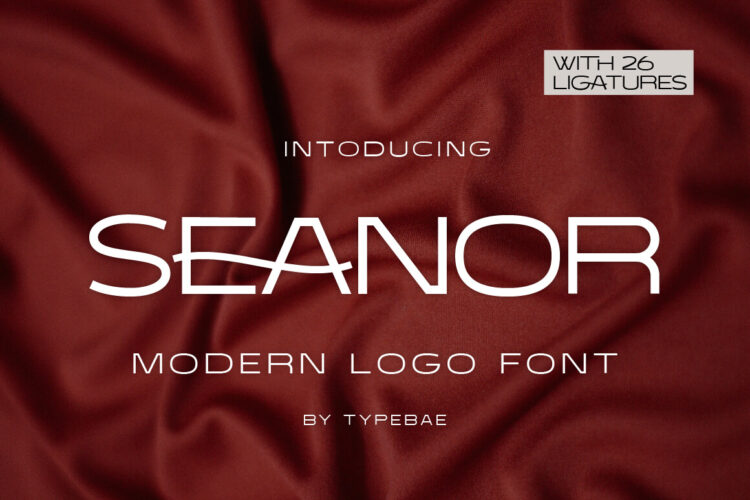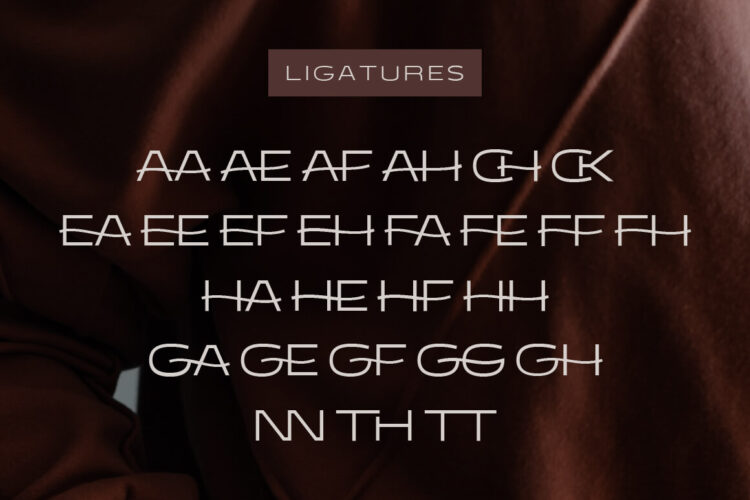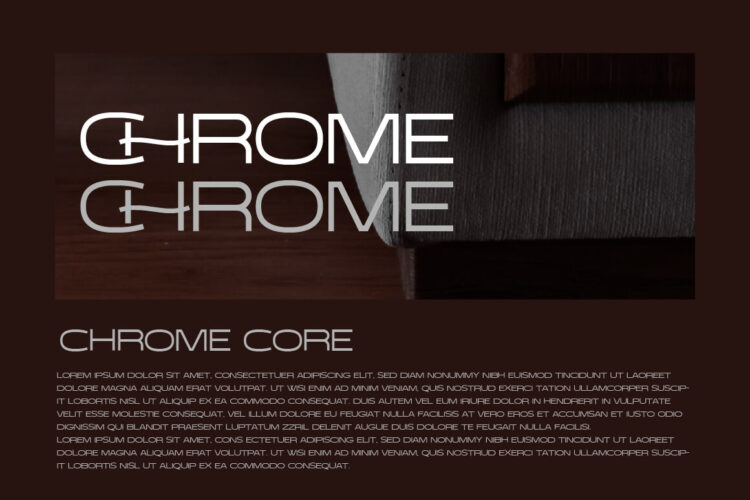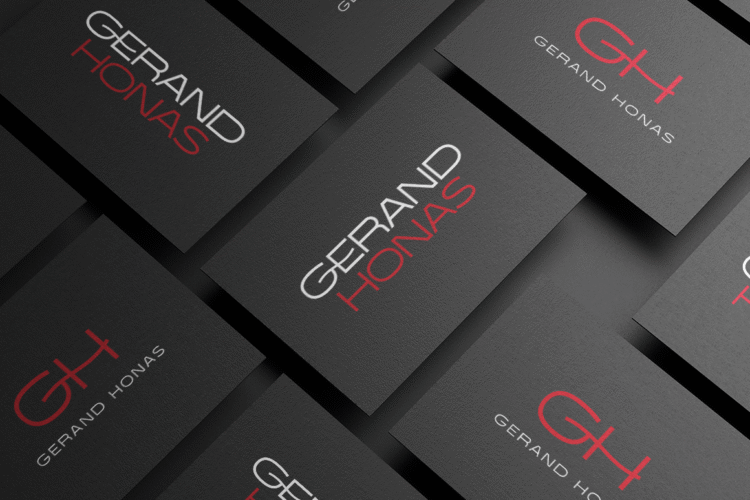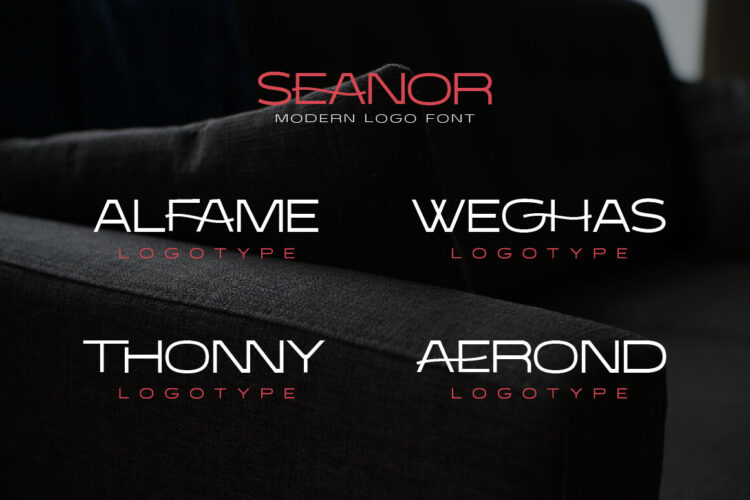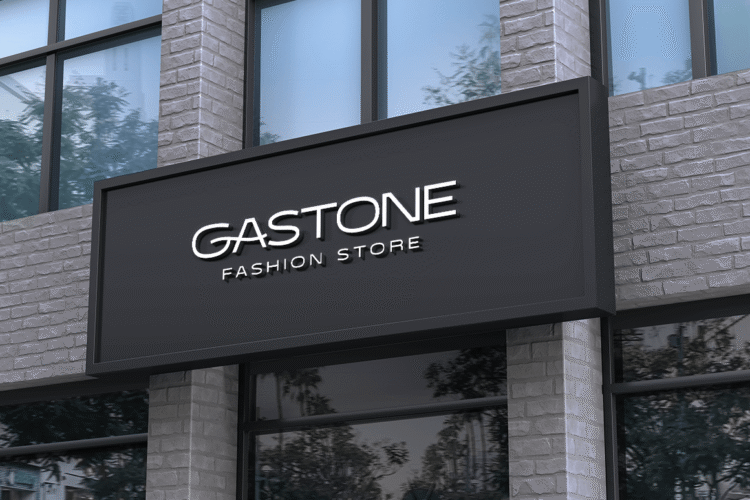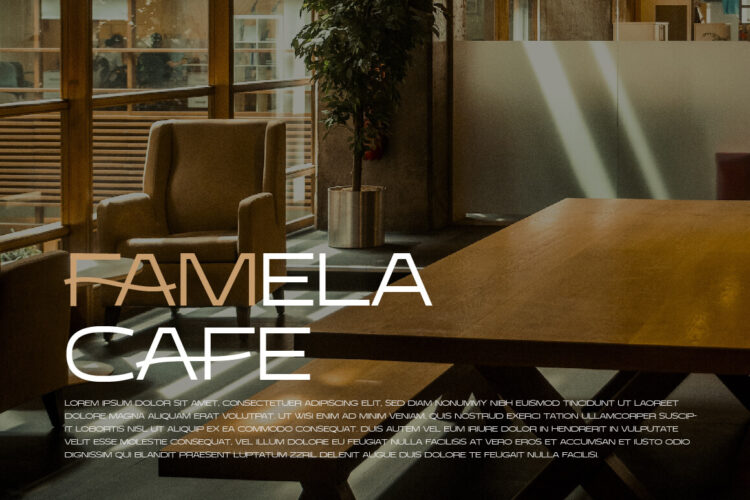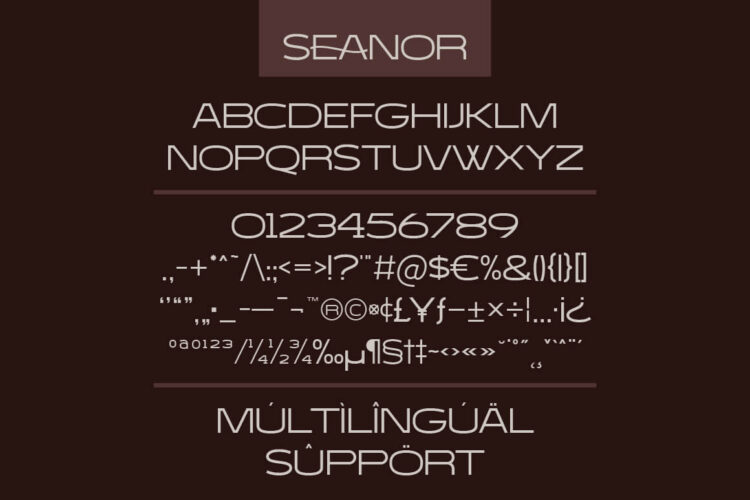
Seanor is a modern and versatile logo font that features 26 elegant ligatures. It offers a modern aesthetic, making it suitable for various branding and design projects. The font’s ligatures provide unique and stylish combinations of letterforms, enhancing the overall visual appeal of any logo or typographic design.
Feature: 26 Ligature, Alternate, Multilingual and PUA encoded.